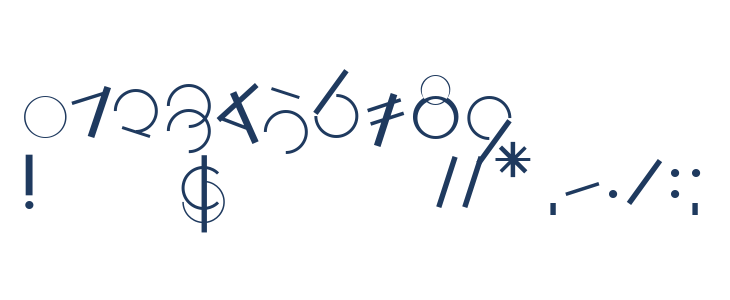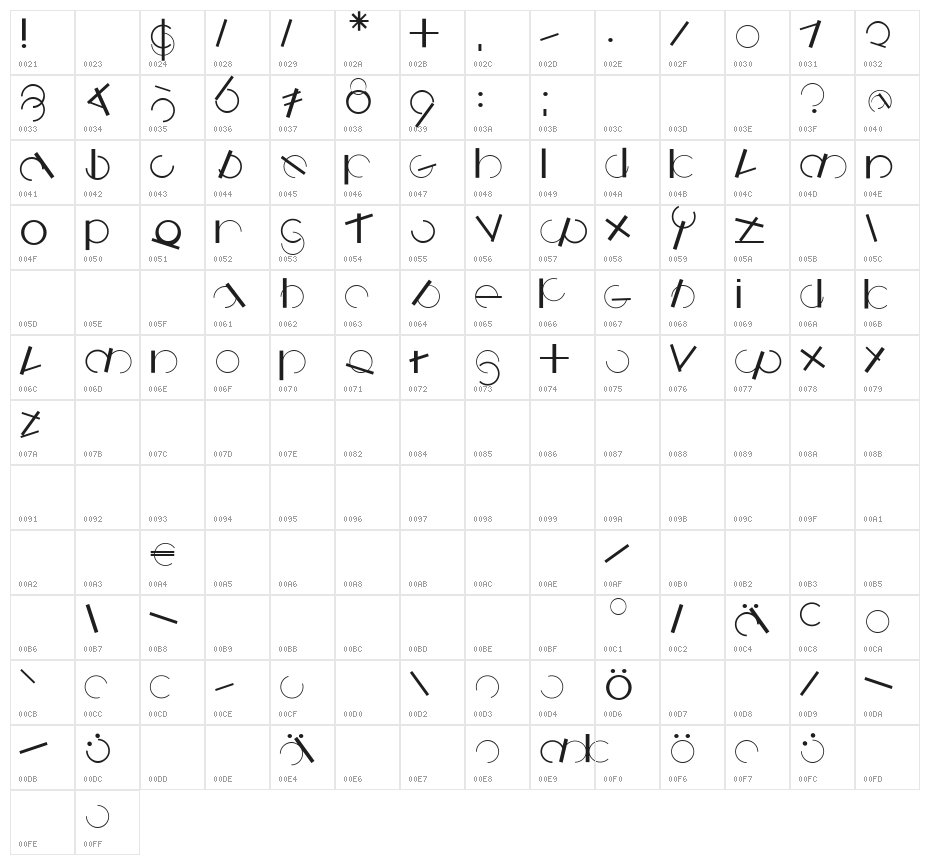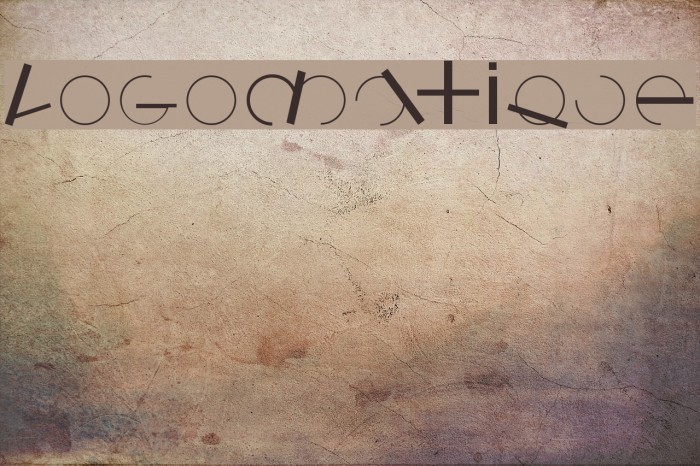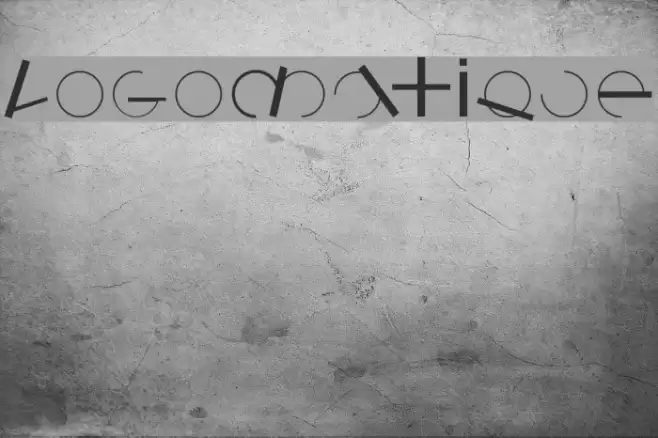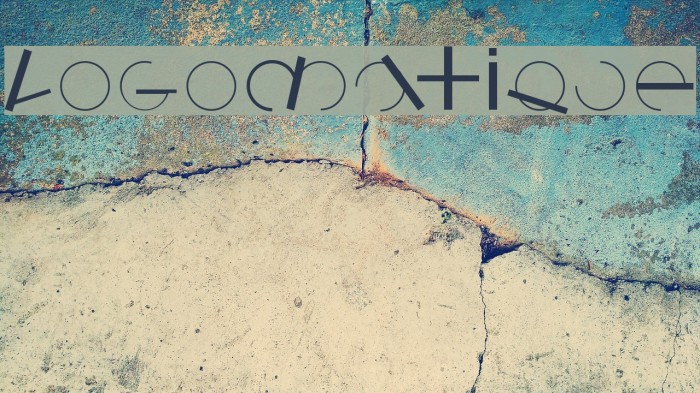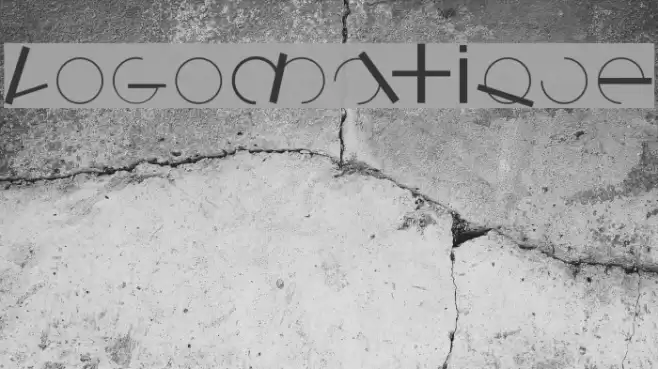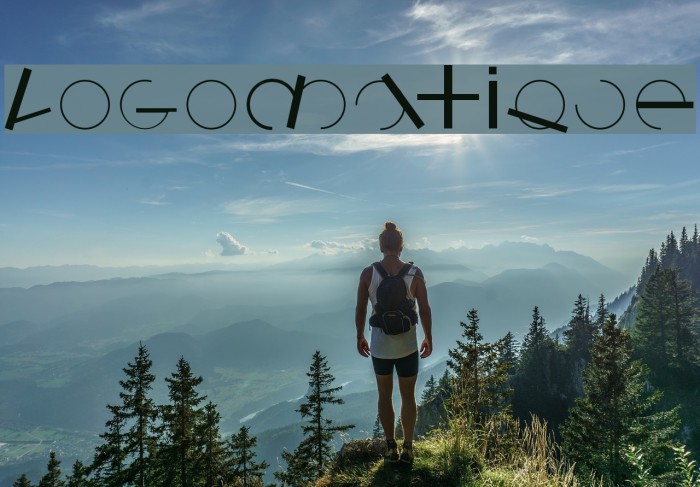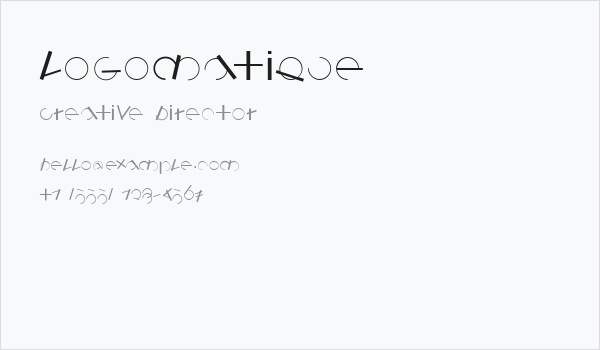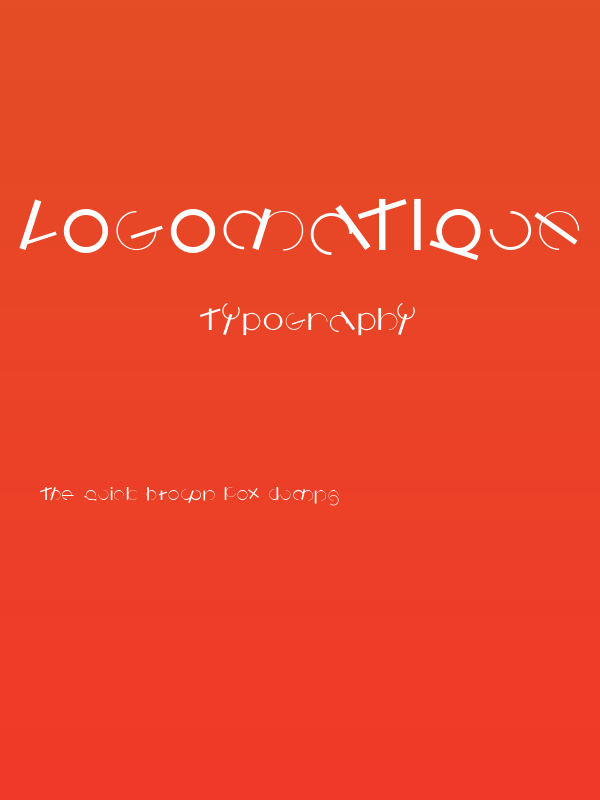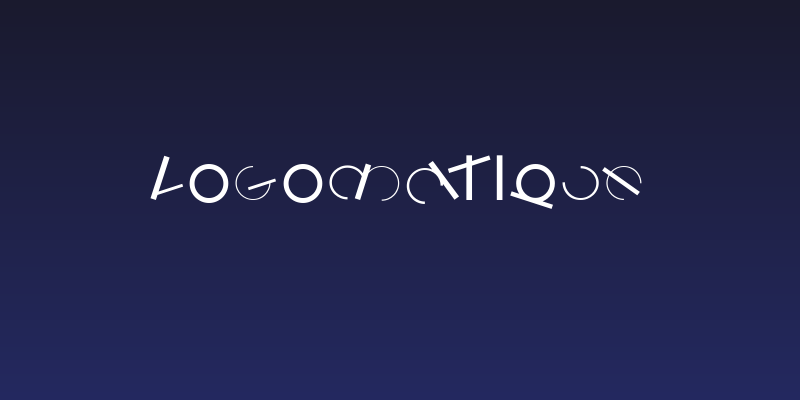
Logomatique Font
Logomatique Description
This font features a highly stylized and modern design, characterized by its unique geometric shapes and unconventional letterforms. The characters are composed of bold lines and curves, creating a futuristic and artistic appearance. The uppercase and lowercase letters share similar design elements, with some letters incorporating circular and angular motifs. The numbers and special characters maintain the same aesthetic, ensuring consistency throughout the typeface. This font is ideal for creative projects that require a distinctive and eye-catching look.
| Proposed Projects | Ideal for branding, logos, posters, and any project that requires a modern and artistic touch. |